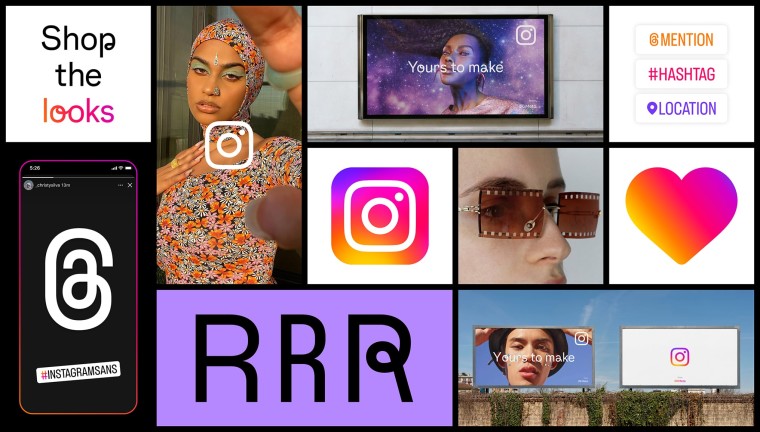
Instagram is refreshing its brand identity by introducing some new visual elements. It includes a new typeface, colors, logo, and other brand elements. The visual refresh will help the company create more immersive experience for its community.
Our new typeface, Instagram Sans, is designed with our heritage in mind and includes multiple global scripts.
Apart from the logo, there's also a new typeface called Instagram Sans. The social media company will use the new font across billboards, its website, and its mobile apps. The new typeface is a contemporary remix of grotesque and geometric styles. In addition to Instagram Sans Regular, there's Bold, Light, Medium, Condensed, and Condensed Bold as well.
The typeface is not only available in English but also includes global scripts like Arabic, Thai, and Japanese. You can play around with the new typeface by clicking here.
You can already see the new Instagram logo in action across multiple places including its website and mobile apps. You can also find Instagram Sans in places like the Location tag on Instagram Stories.